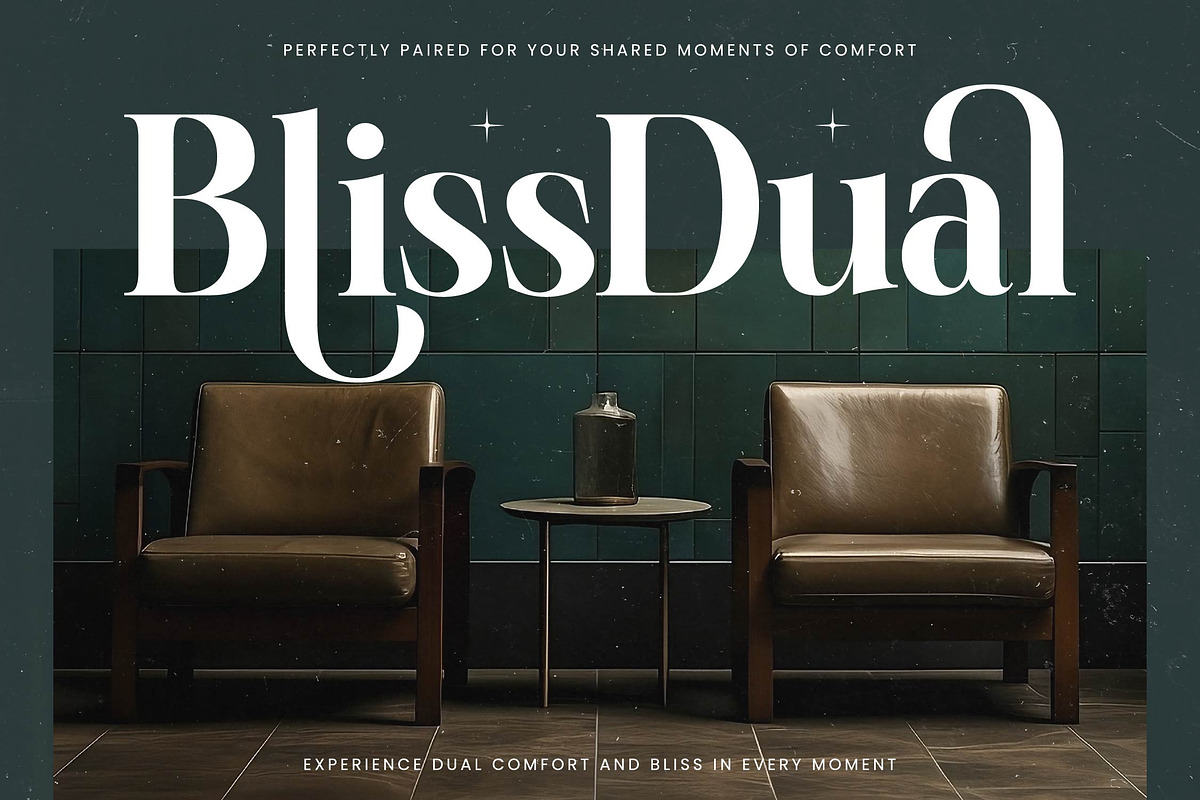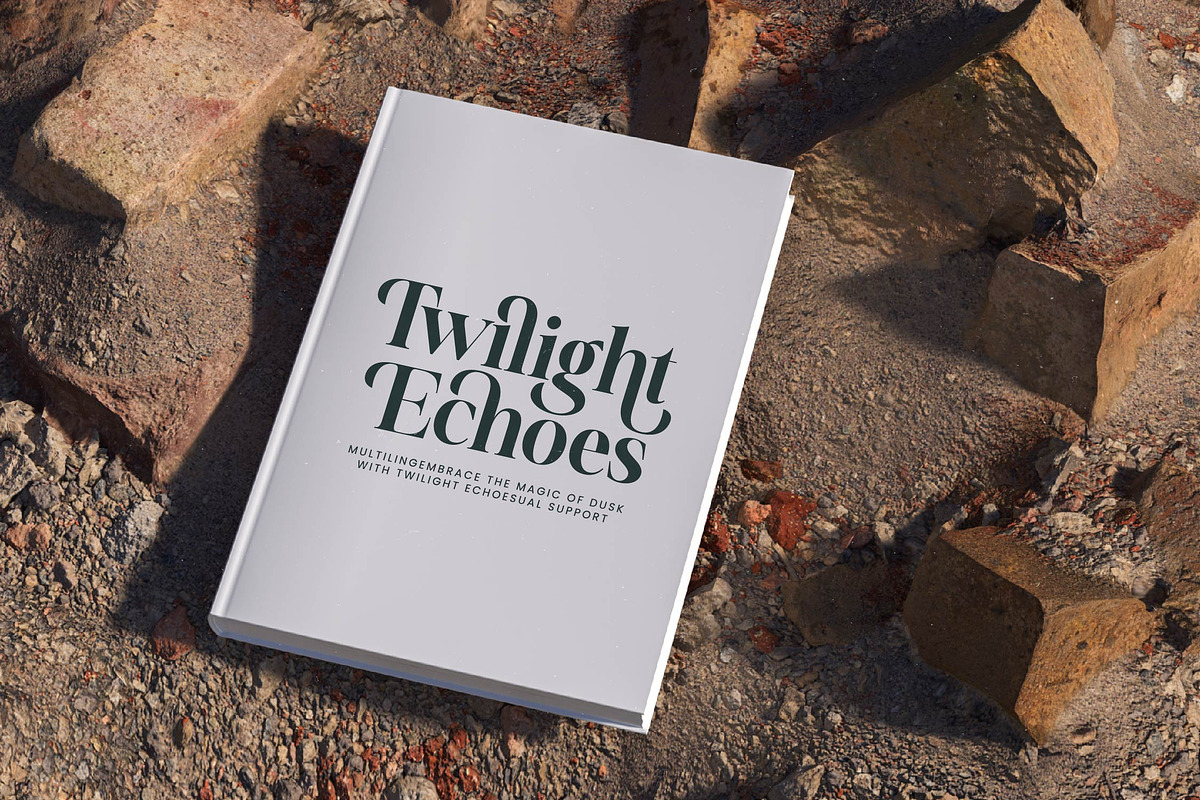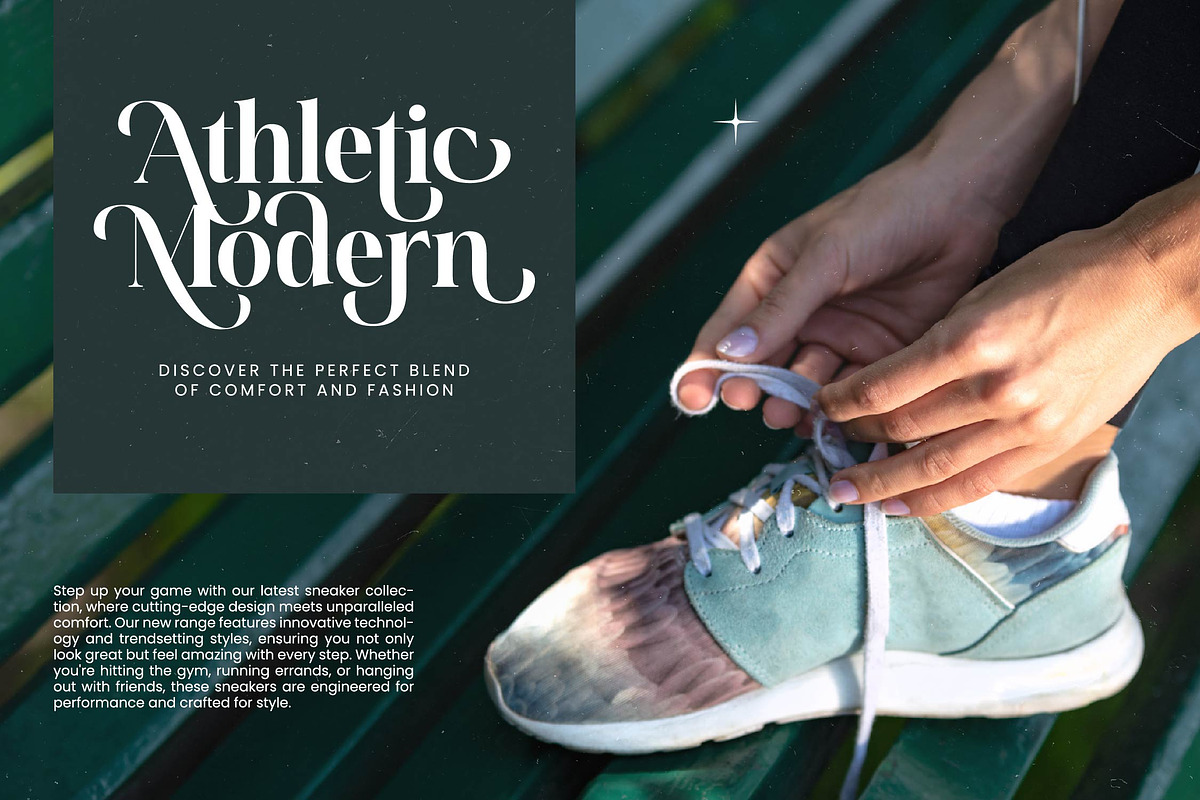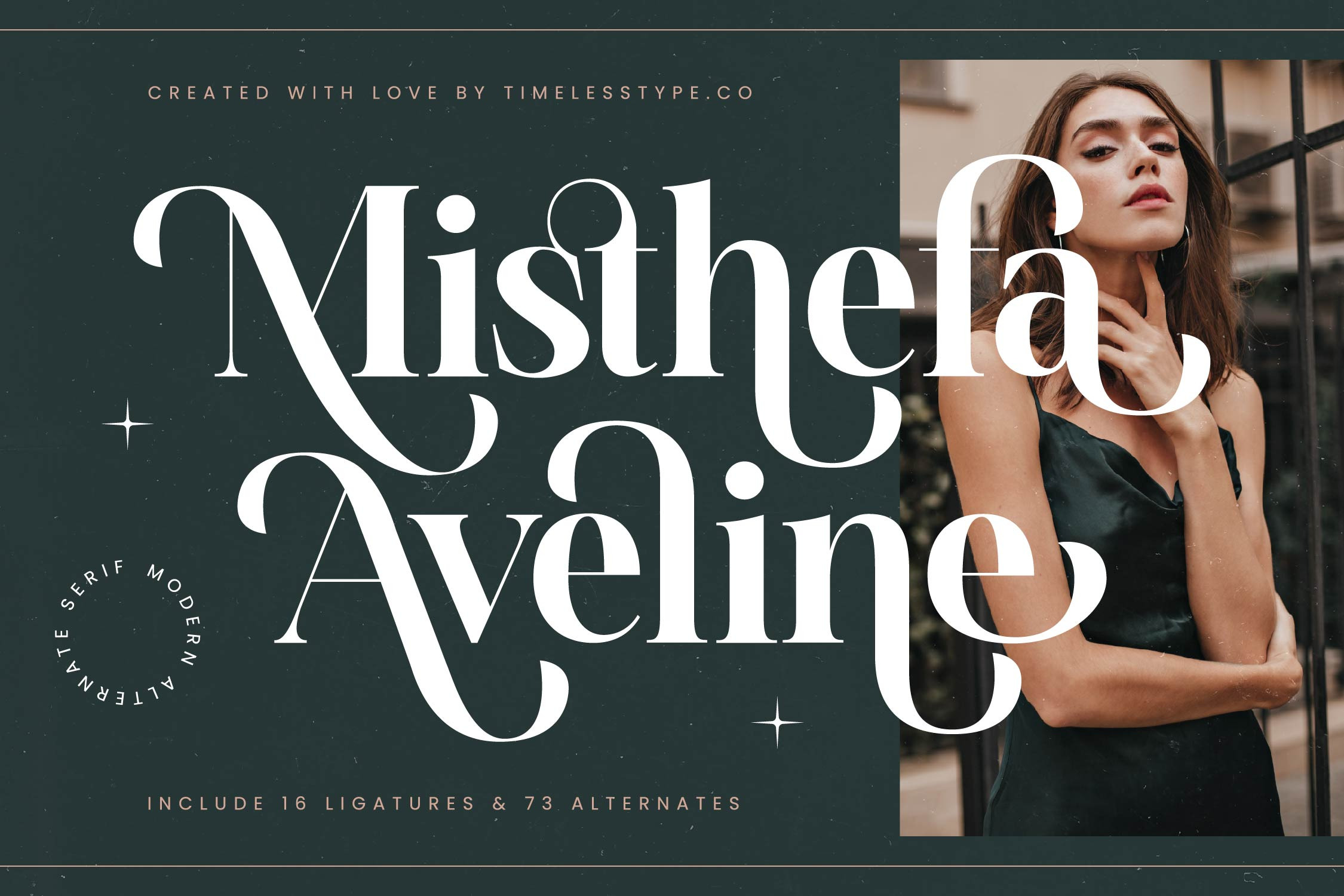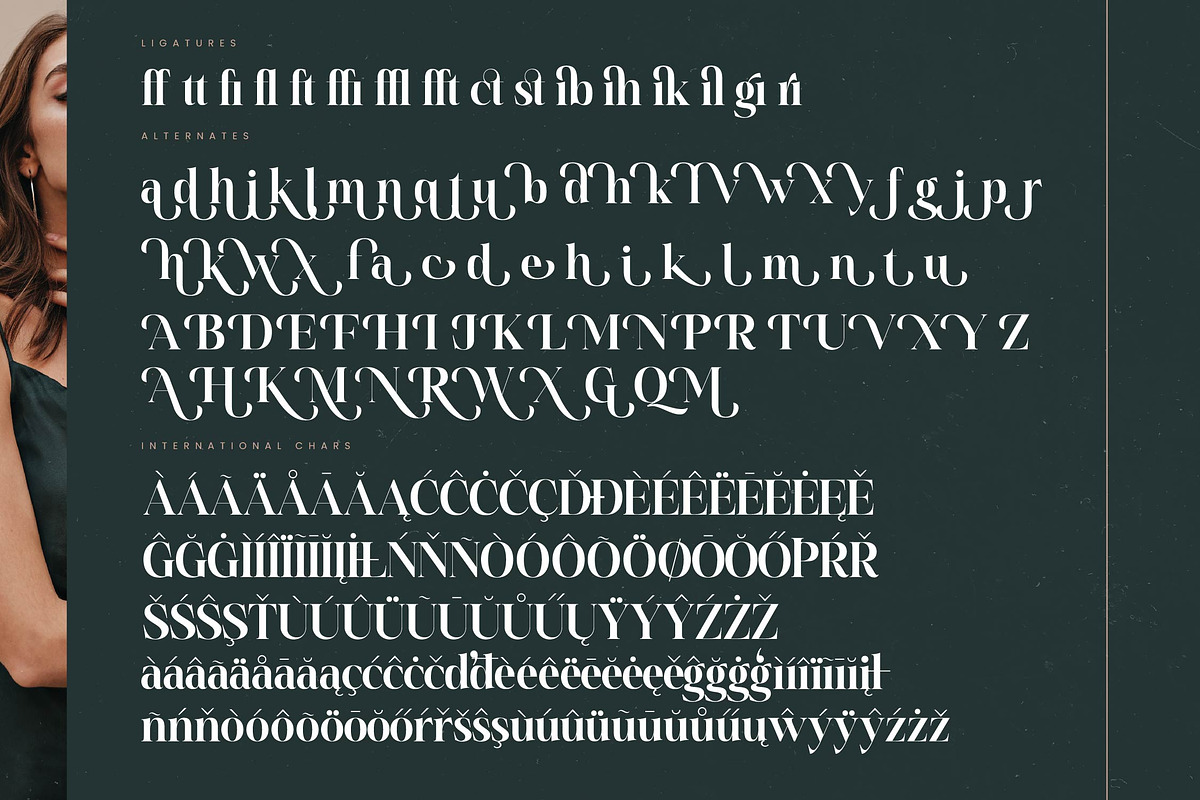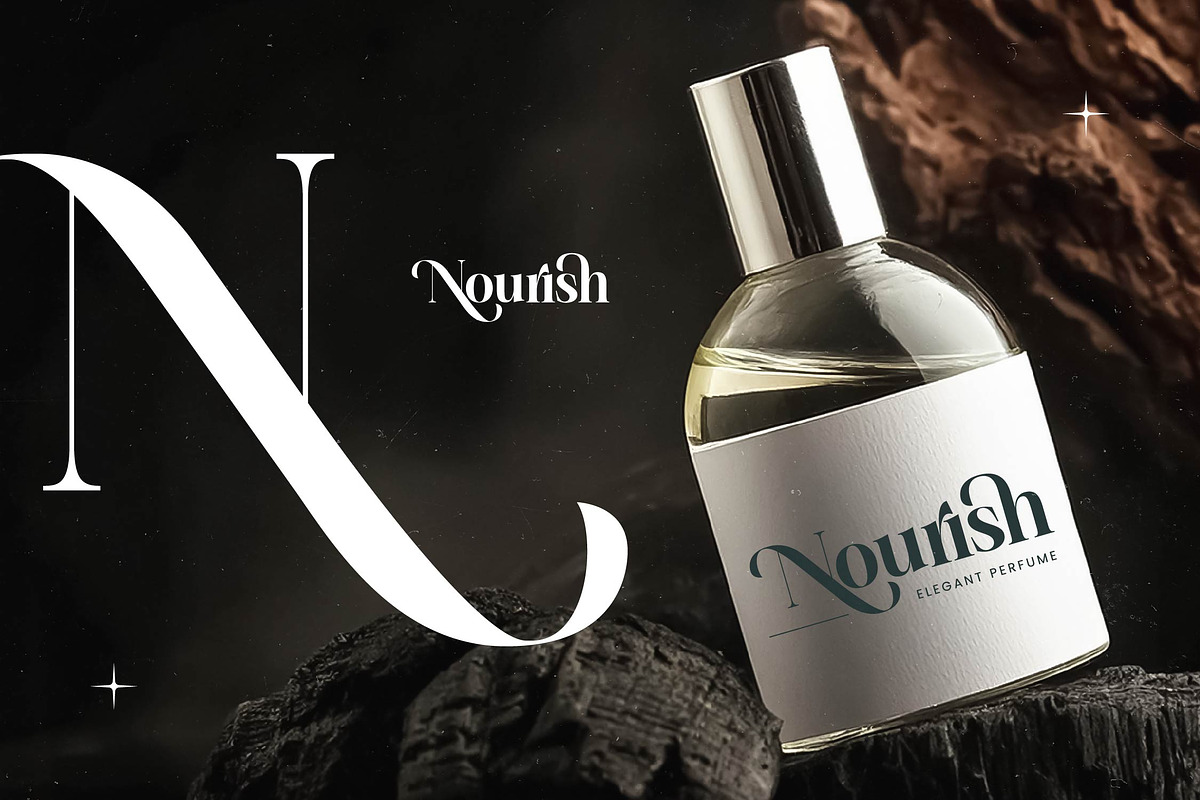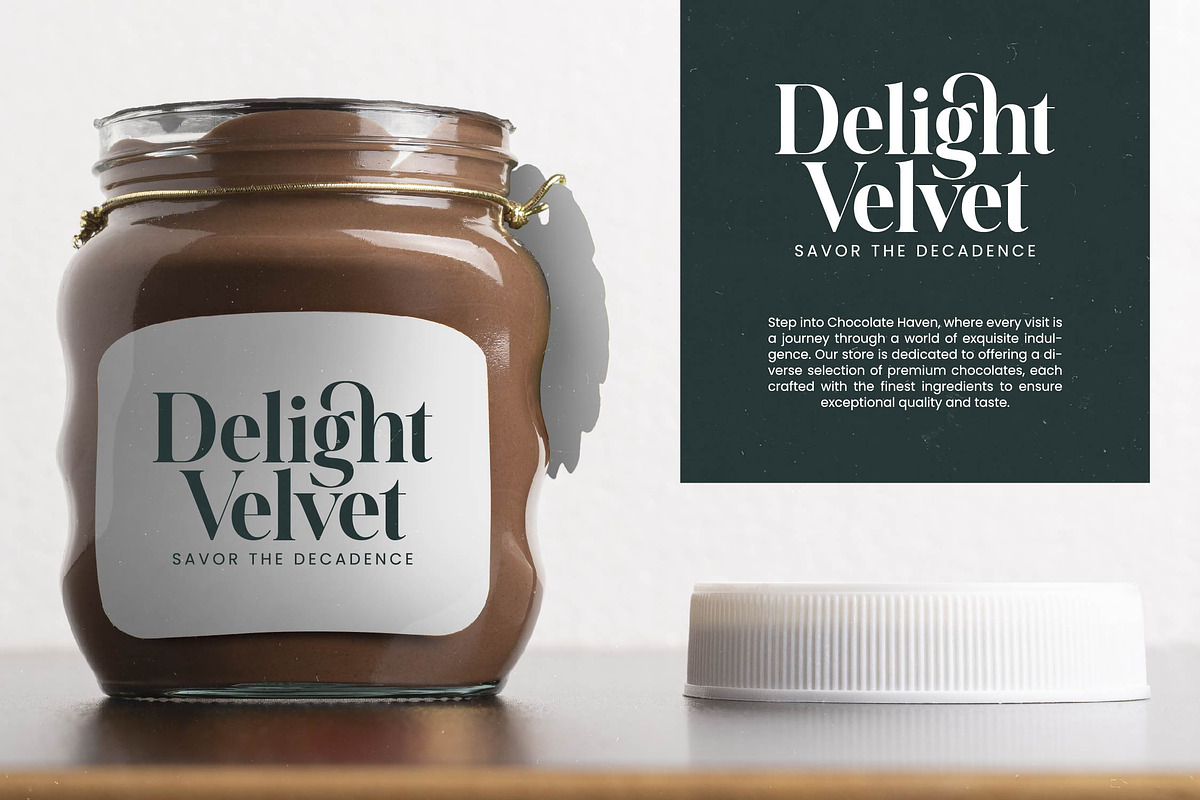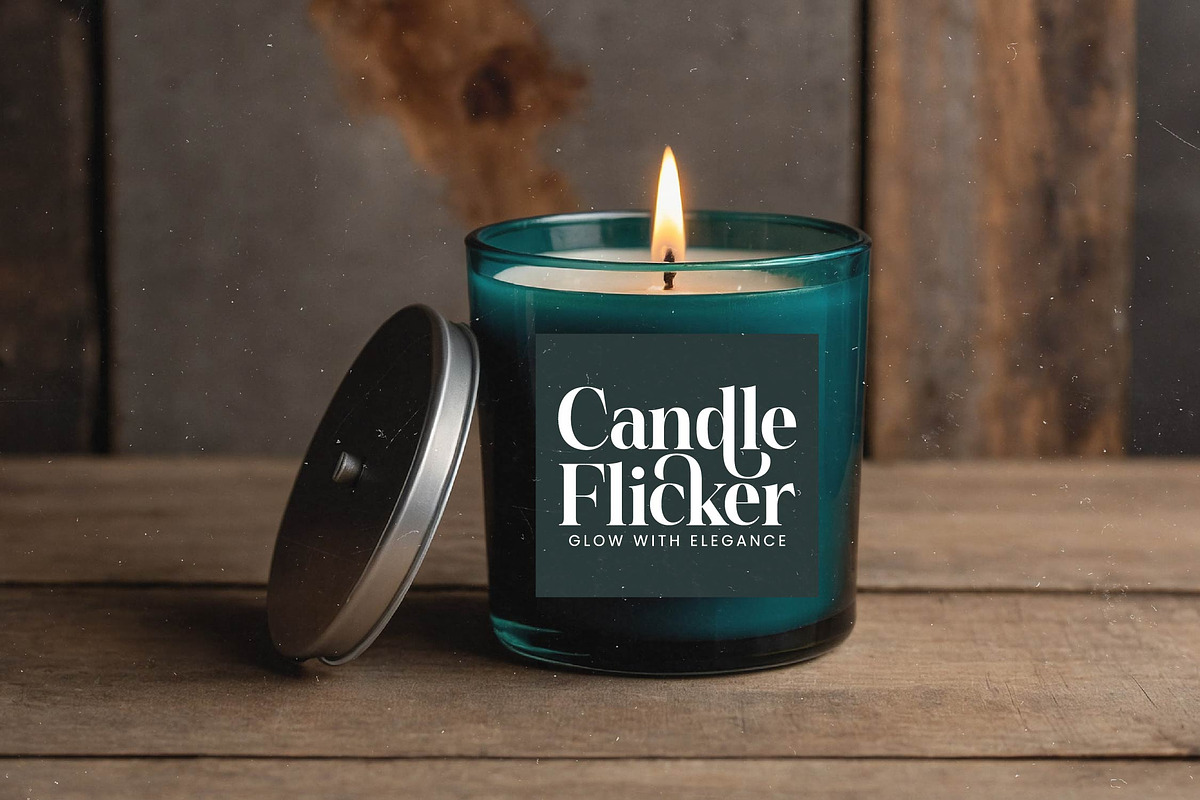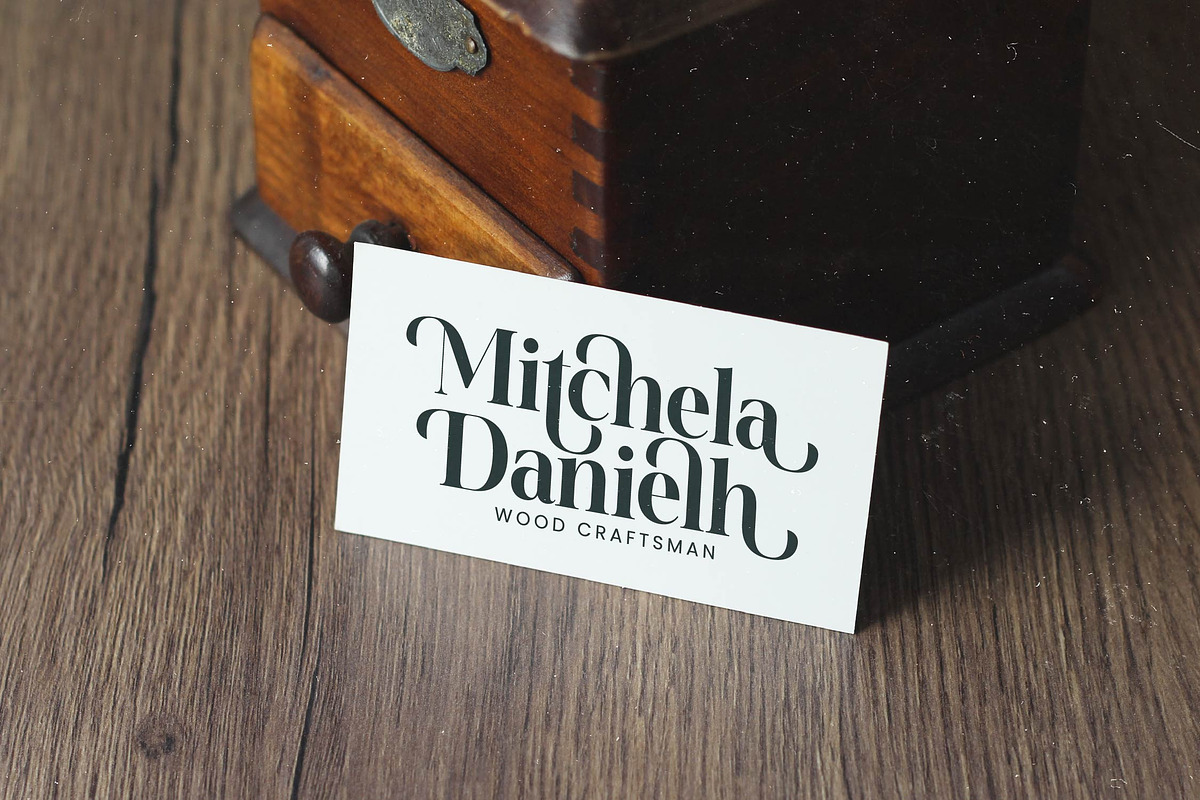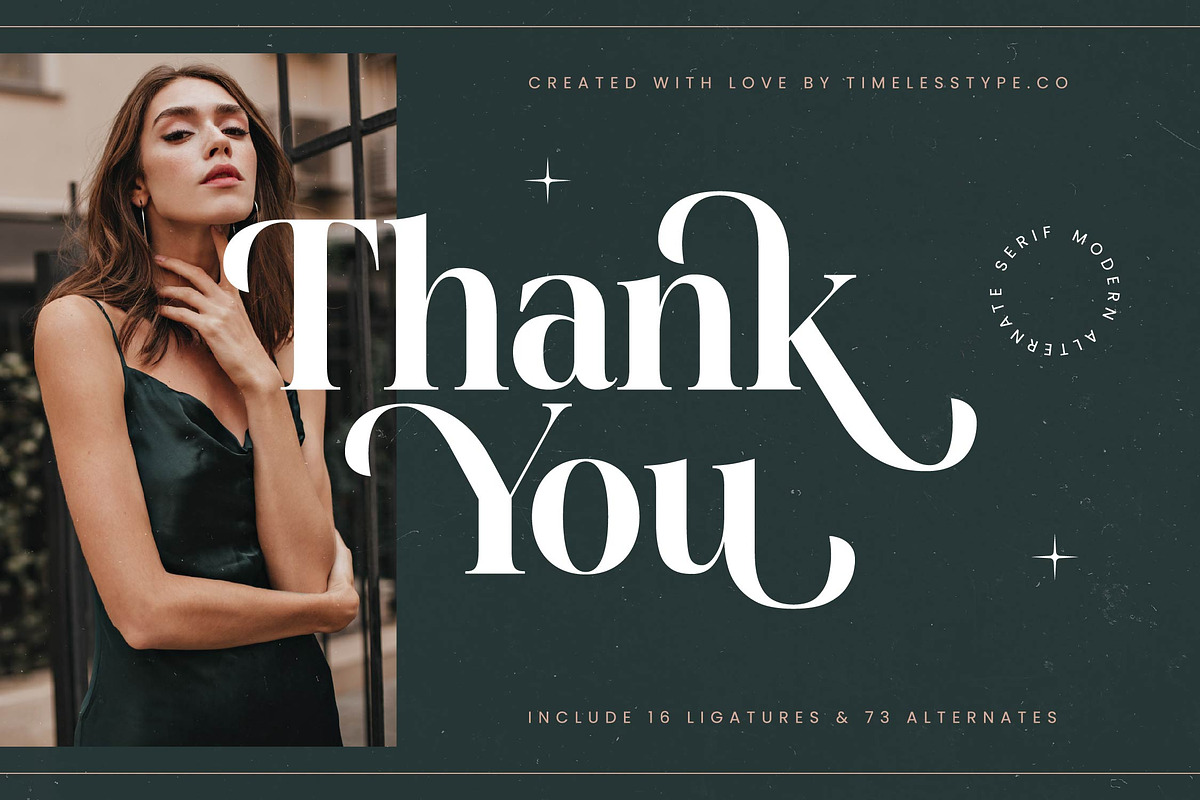
Misthefa Aveline Luxury Serif Font
Misthefa Aveline is an invitation to embrace a world where timeless elegance meets contemporary flair. It captures the essence of refined beauty, transforming every word into a whisper of sophistication and grace.
Inspired by the effortless chic of Parisian boutiques and the enduring allure of classic editorial spreads, this typeface evokes an atmosphere of quiet luxury and artistic intention. It draws its soul from the intersection of heritage craftsmanship and the bold energy of modern high fashion.
This modern serif display exudes a confidence that only comes from perfect balance and luxury typography. With its high-contrast serif strokes and fluid curves, it functions as an editorial font that commands attention while maintaining a high branding impact across any medium.
In an era where designers crave unique personality, this typeface aligns perfectly with the modern serif trend seen in global creative hubs. It represents the pinnacle of editorial display fonts, offering character-driven typography that feels both fresh for today and respectful of typographic history.
Designers will find it indispensable for high-end logo design and comprehensive branding systems that require a touch of class. It shines in editorial layouts, luxury packaging, and delicate wedding stationery, while providing the perfect aesthetic anchor for the world of fashion and lifestyle photography.
The font is packed with creative possibilities, including a rich set of ligatures and alternates that allow for custom-tailored letterforms. With decorative swashes and full multilingual support covering various international characters, this is a premium tool designed for professional excellence.
- Ligature 16 Alternate 73